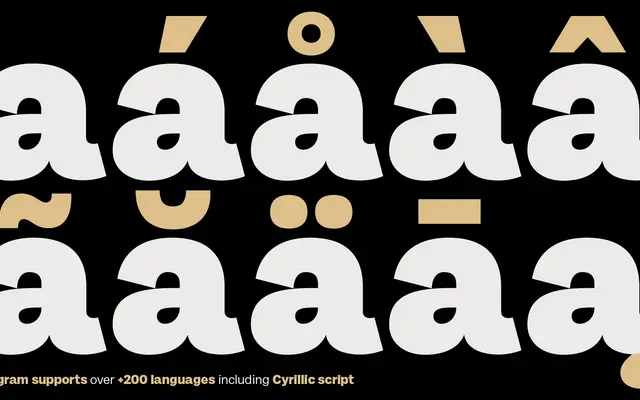
Milligram
Zetafonts · Cosimo Lorenzo Pancini, Andrea Tartarelli · 2021
A 102-style grotesque super-family by Cosimo Lorenzo Pancini and Andrea Tartarelli that borrows metal-type warmth to soften its modernist structure across display, text and width subfamilies.
Built across nine subfamilies spanning five widths and up to seven weights each, the family separates display and text spacing into dedicated cuts so each application gets appropriate aperture and tracking. The Macro subfamily pushes glyphs close together for dense, sculptural wordmarks and titling, while Milligram Text opens out for body copy and UI use. Slanted terminal cuts, slightly tapered verticals and soft curve joins give the grotesque structure a warmer reading texture without departing from its modernist proportions. Four variable font files covering roman and italic in both standard and Macro styles complete the release.
A grotesque sans-serif that draws on metal-type quirks such as slanted terminal cuts and tapered verticals rather than strict Swiss modernism, placing it firmly in the humanised grotesque tradition.